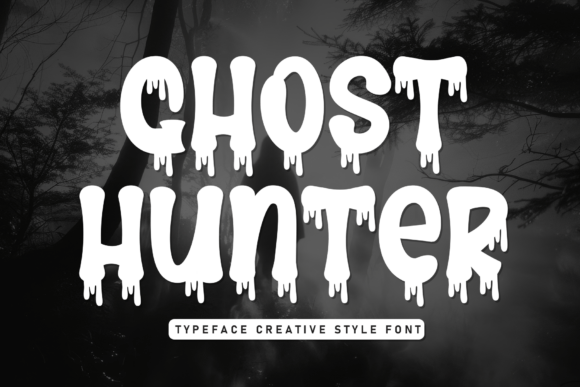
The Perfect Companion for Your Next Design Adventure
Have you ever sat in front of a blank canvas, staring at a sea of possibilities, and felt an overwhelming urge to create something truly unique? That’s the moment when the right font can make all the difference. It’s the spark that sets your imagination ablaze, propelling you to push the boundaries of your creativity.
Enter the Ghost Hunter Font, a masterfully designed display font that’s poised to become your new favorite companion. This versatile font is the perfect tool for designers looking to add an extra layer of sophistication and flair to their work. With its unique character, Ghost Hunter Font has the potential to elevate each of your creative ideas to new heights, making it an invaluable asset for any design project.
Ghost Hunter Font Key Features
- Font Family: Ghost Hunter Font is a unique, hand-drawn font designed for horror and thriller themes.
- Size: The font family includes 6 different font weights (Thin, Light, Regular, Medium, Bold, and Black) to cater to various design needs.
- Unique Characteristics: The font features eerie, hand-drawn elements, such as ghostly silhouettes, spider webs, and other creepy details, making it perfect for horror-themed projects.
- Characters: Includes a wide range of characters, including uppercase and lowercase letters, numbers, and punctuation marks, as well as special characters like symbols and accents.
Ghost Hunter Font Review
As a designer, I’ve had the chance to work with the Ghost Hunter Font, and I must say it’s an interesting choice. ✨ One of the things that works well for this font is its ability to evoke a sense of mystery and otherworldliness. It’s perfect for any project that needs a touch of eeriness or supernatural flair.
Additionally, the font is quite versatile and can be used for a variety of purposes, from titles and headings to body text. The bold and italic versions are also well-designed, making it easy to create emphasis and hierarchy in your design.
- ⚠️ Limited character set: The font only includes a basic set of characters, which can be a limitation for projects that require a wider range of characters, such as international characters or special symbols.
- ⚠️ Not ideal for body text: While the font is great for titles and headings, it’s not the most readable font for large blocks of body text. The letterforms can be quite ornate and may cause eye strain for some users.
Overall, I think the Ghost Hunter Font is a solid choice for designers who need a font with a bit of edge and character. However, it’s not a one-size-fits-all solution, and designers should be aware of its limitations before using it in their projects.
To get the most out of Ghost Hunter Font, use it for spooky or mysterious designs, such as Halloween decorations, horror movie posters, or paranormal-themed websites.
Experiment with different font sizes, colors, and combinations to create a haunting atmosphere.
Use it in conjunction with other spooky graphics and effects to enhance the overall mood.
Ghost Hunter Font is commonly used for:
– Horror movie posters and trailers
– Halloween decorations and party invitations
– Paranormal-themed websites and social media profiles
– Spooky book covers and author websites
Q: Are there any font pairing suggestions for the Ghost Hunter Font?
For a classic horror look, pair the Ghost Hunter Font with a distressed or worn font, such as a vintage-style serif font like Playfair Display or a distressed sans-serif font like Grunge. For a more modern take, pair it with a clean sans-serif font like Arial or Helvetica.